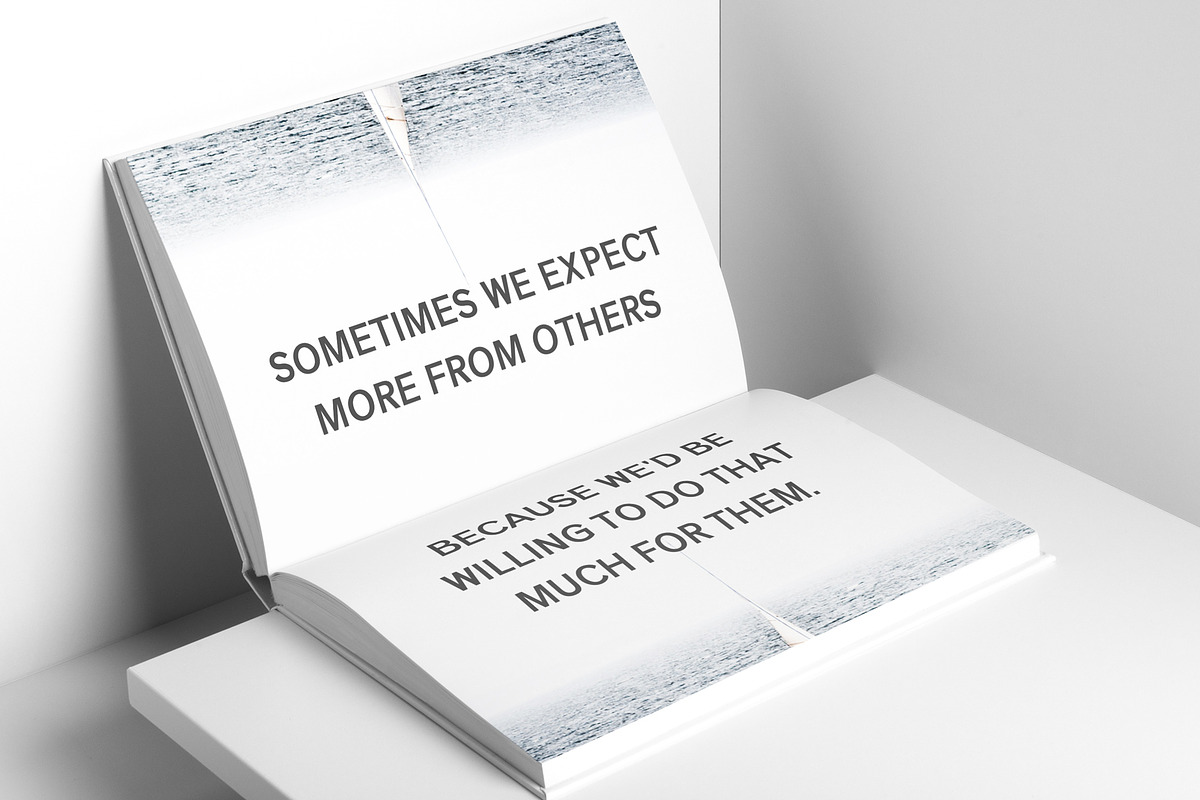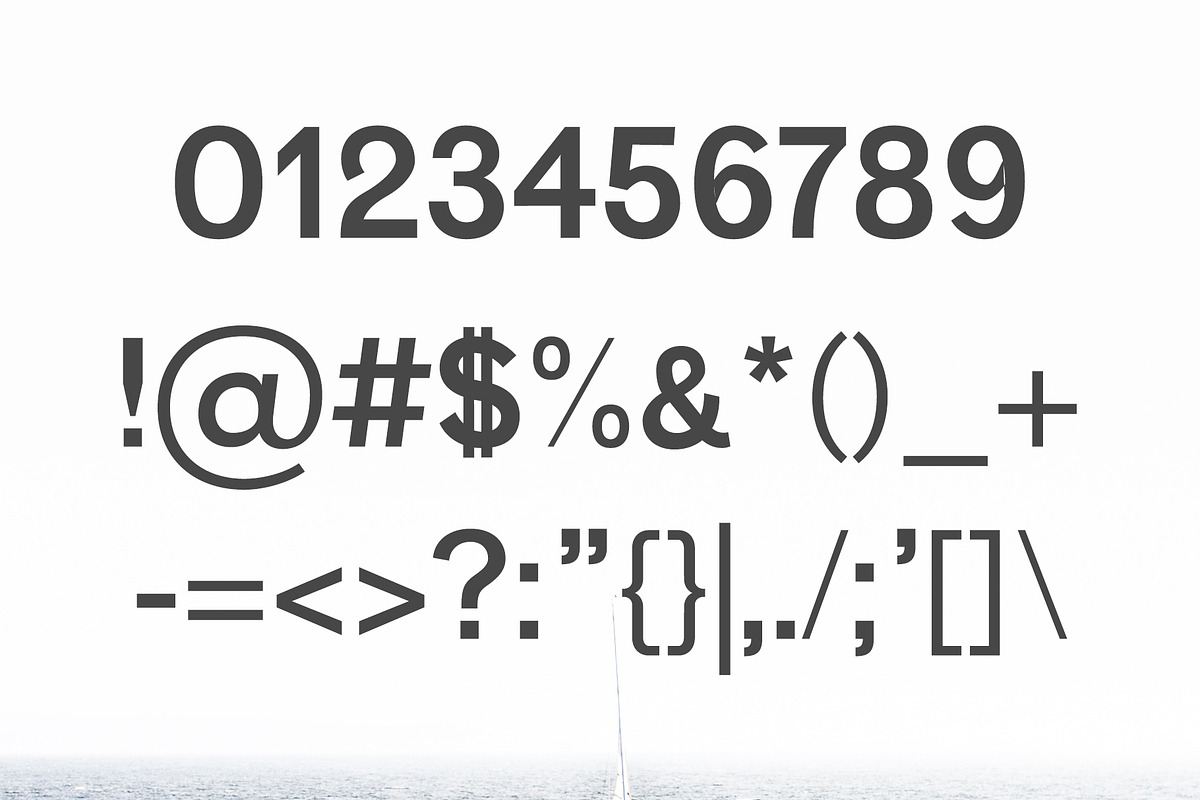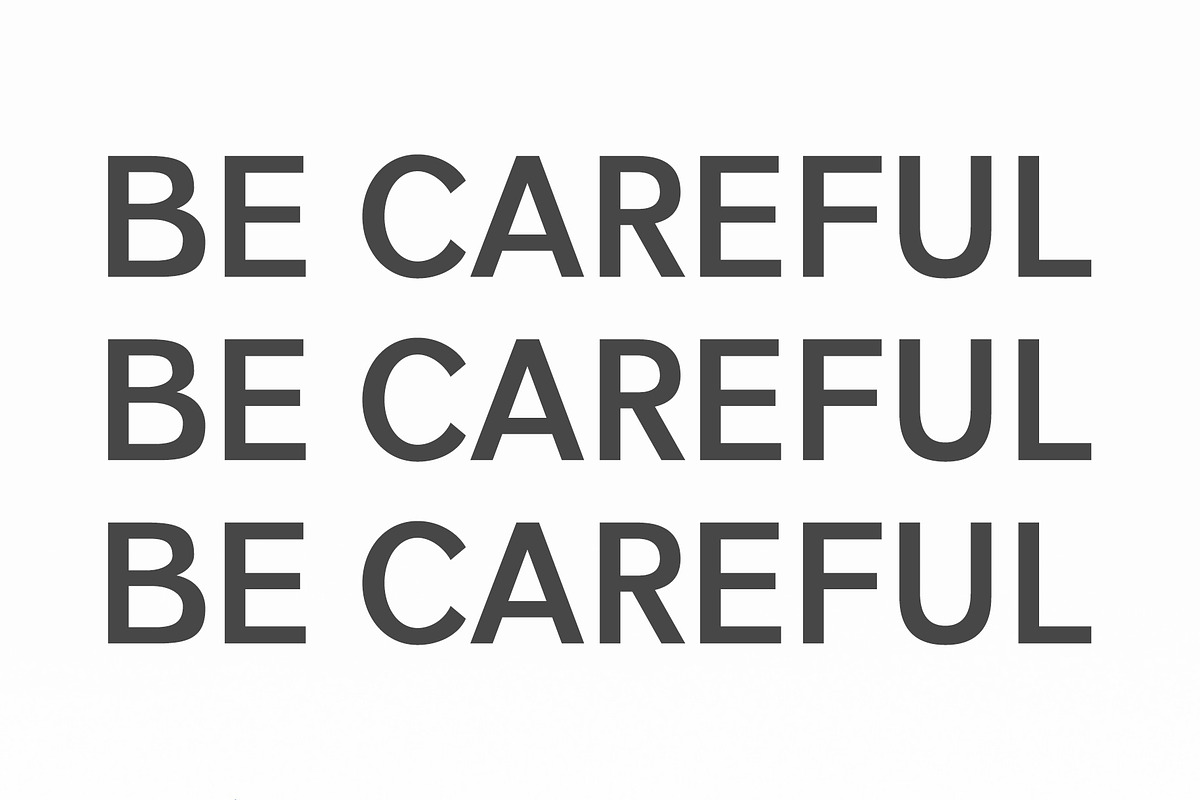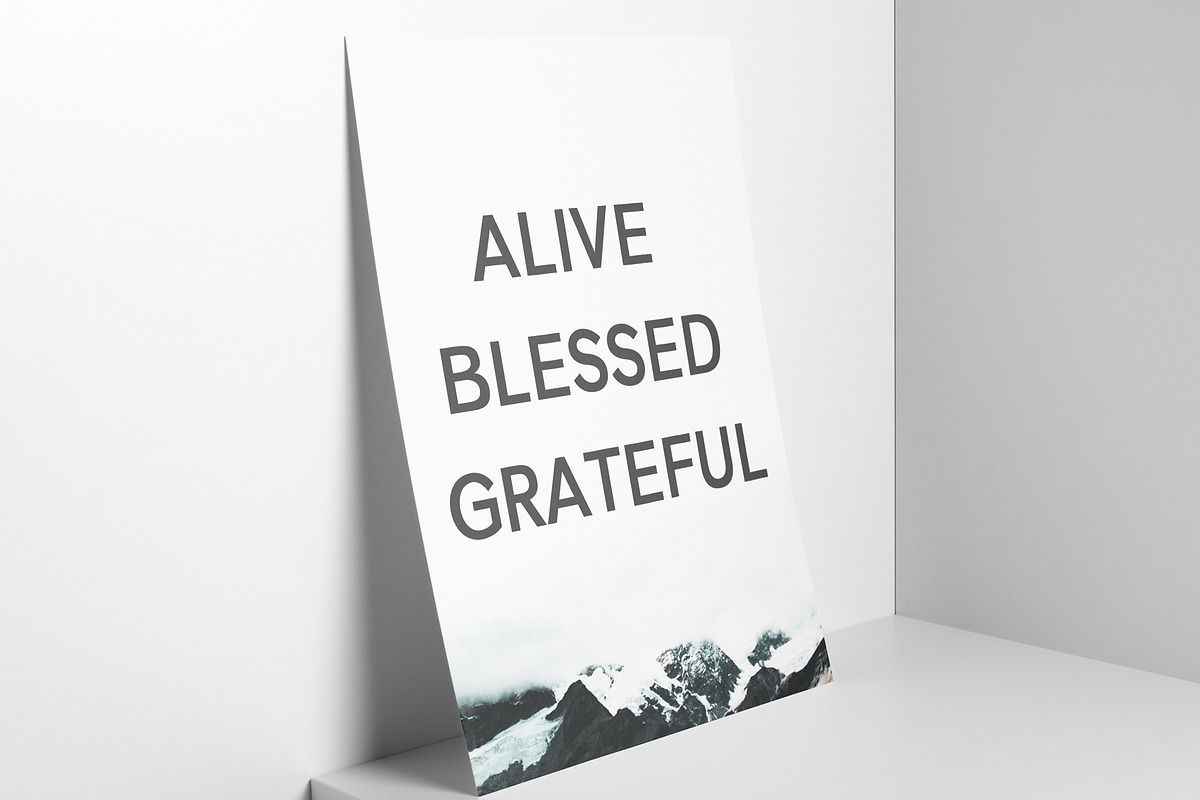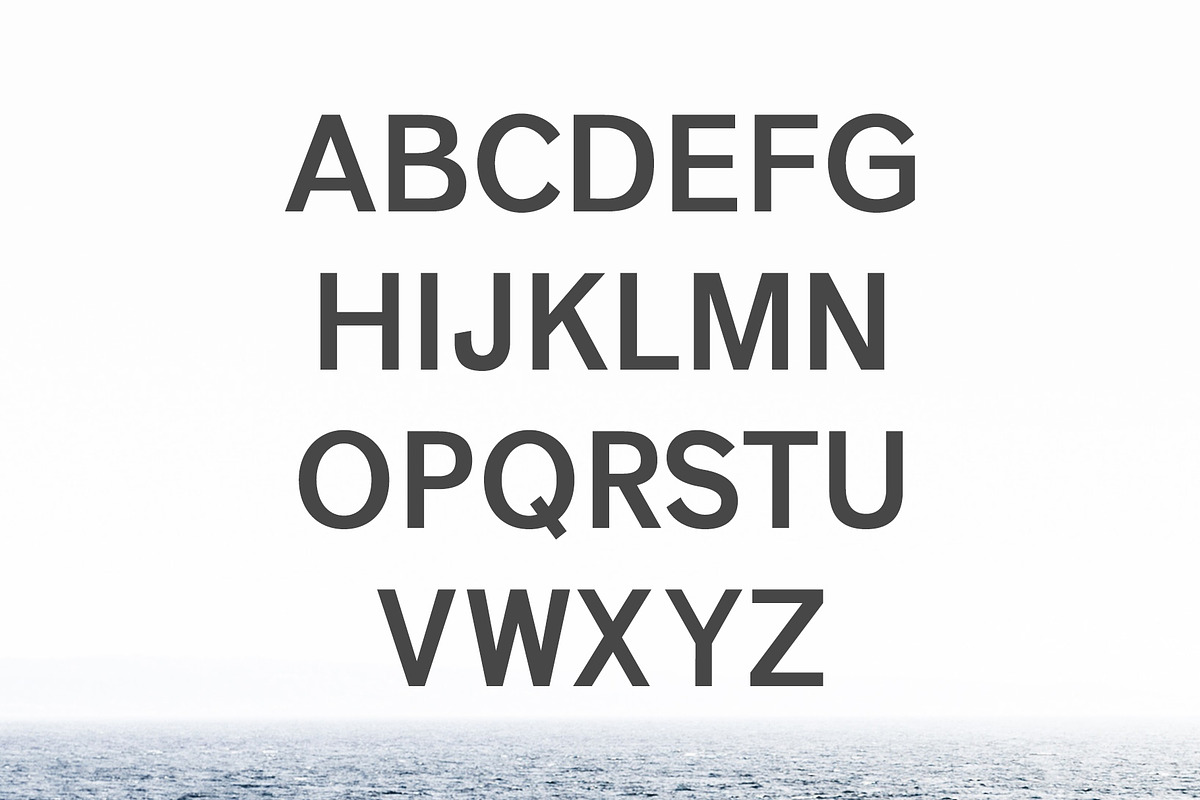
Vengeance Sans Serif Font Family
Vengeance Sans Serif Font Family by Creativetacos is a font selected for branding, posters, packaging, typography.
- Get more fonts and save huge: https://crmrkt.com/bDxQeJ Vengeance Sans Serif Font is a beautiful serif font comes with 7 different weights.
- It includes all basic glyphs with Non-English characters.
Why Vengeance Sans Serif Font Family is worth a look
Vengeance Sans Serif Font Family by Creativetacos fits naturally into Branding, posters, packaging, typography.